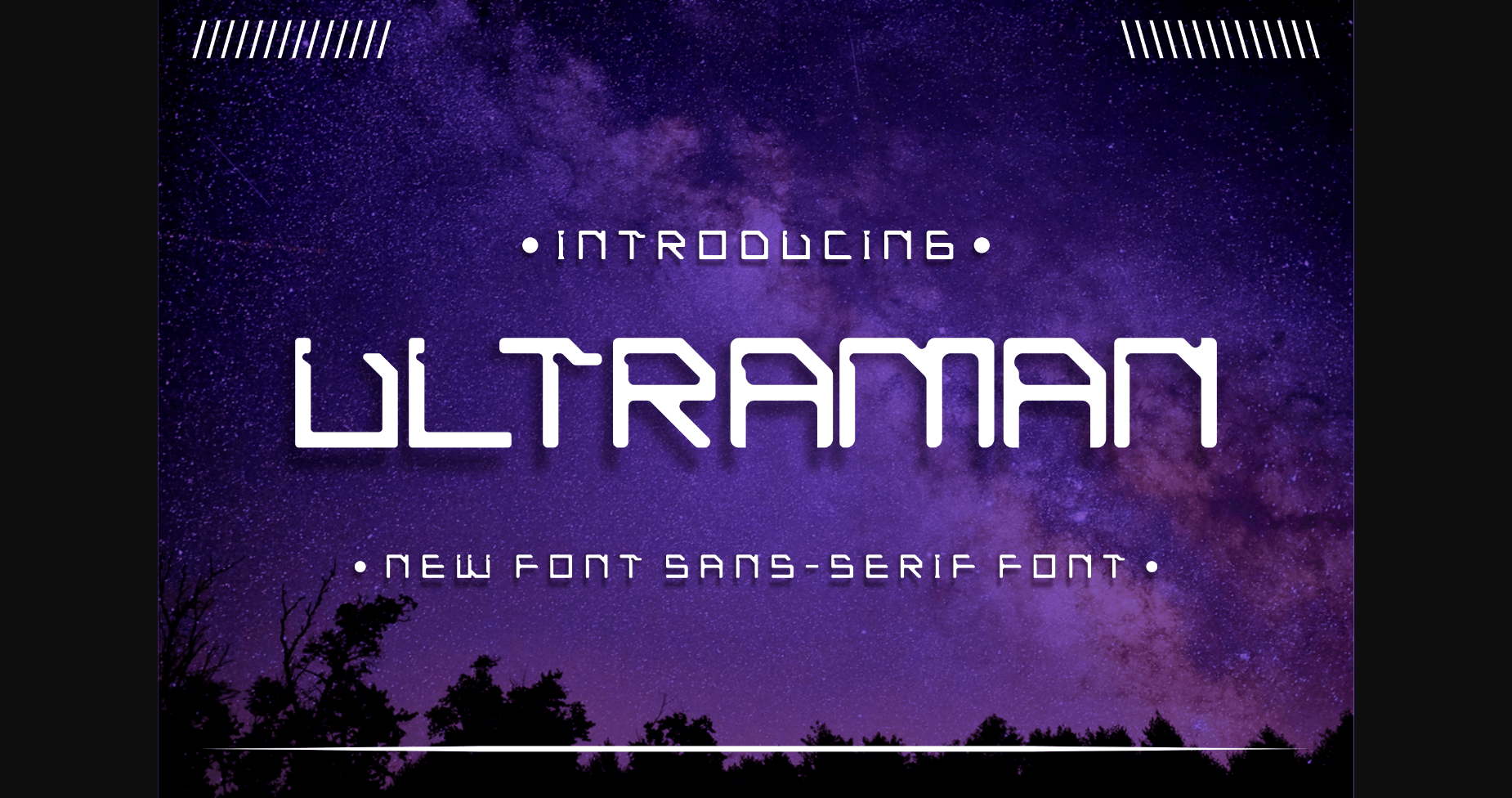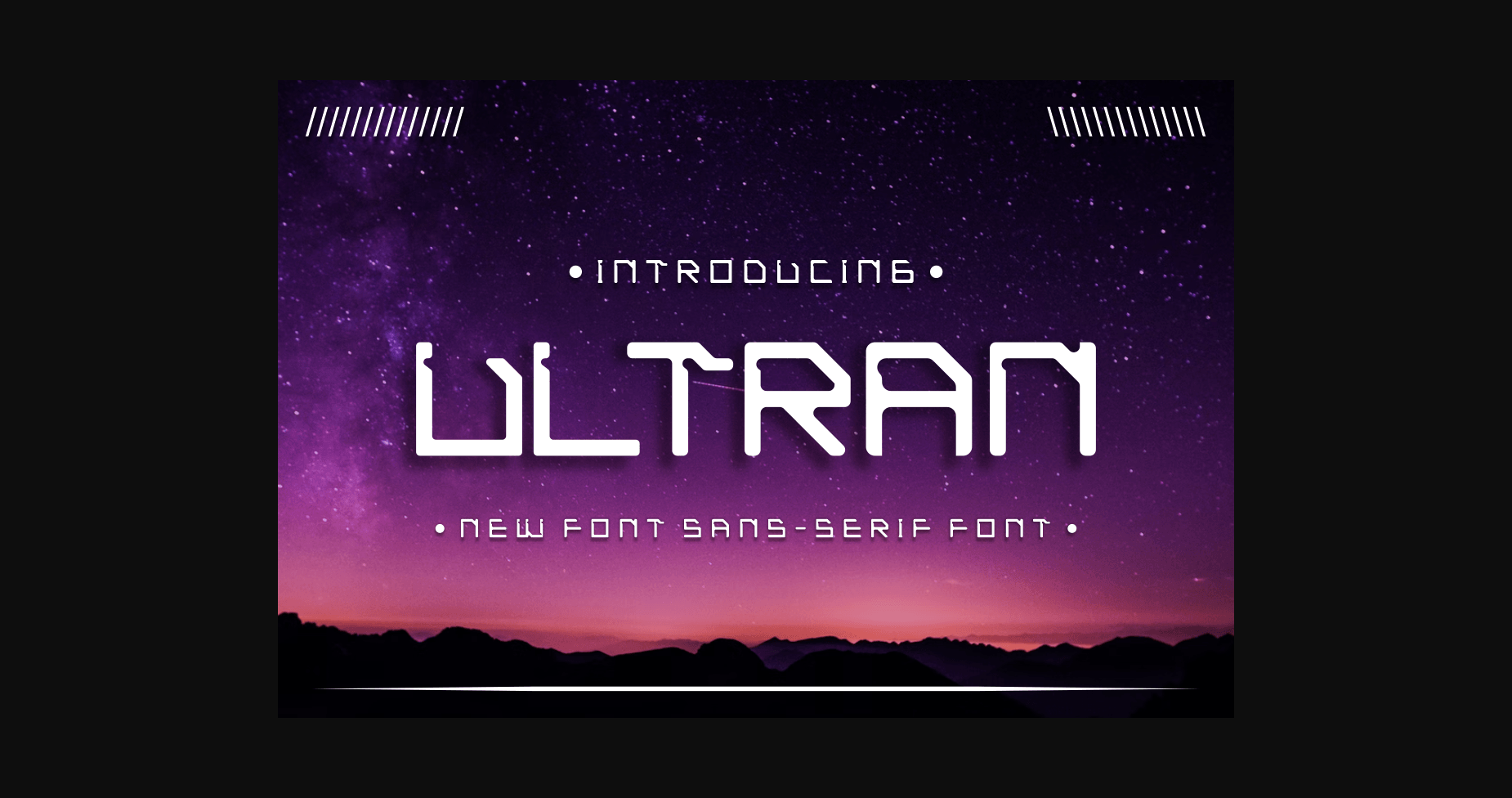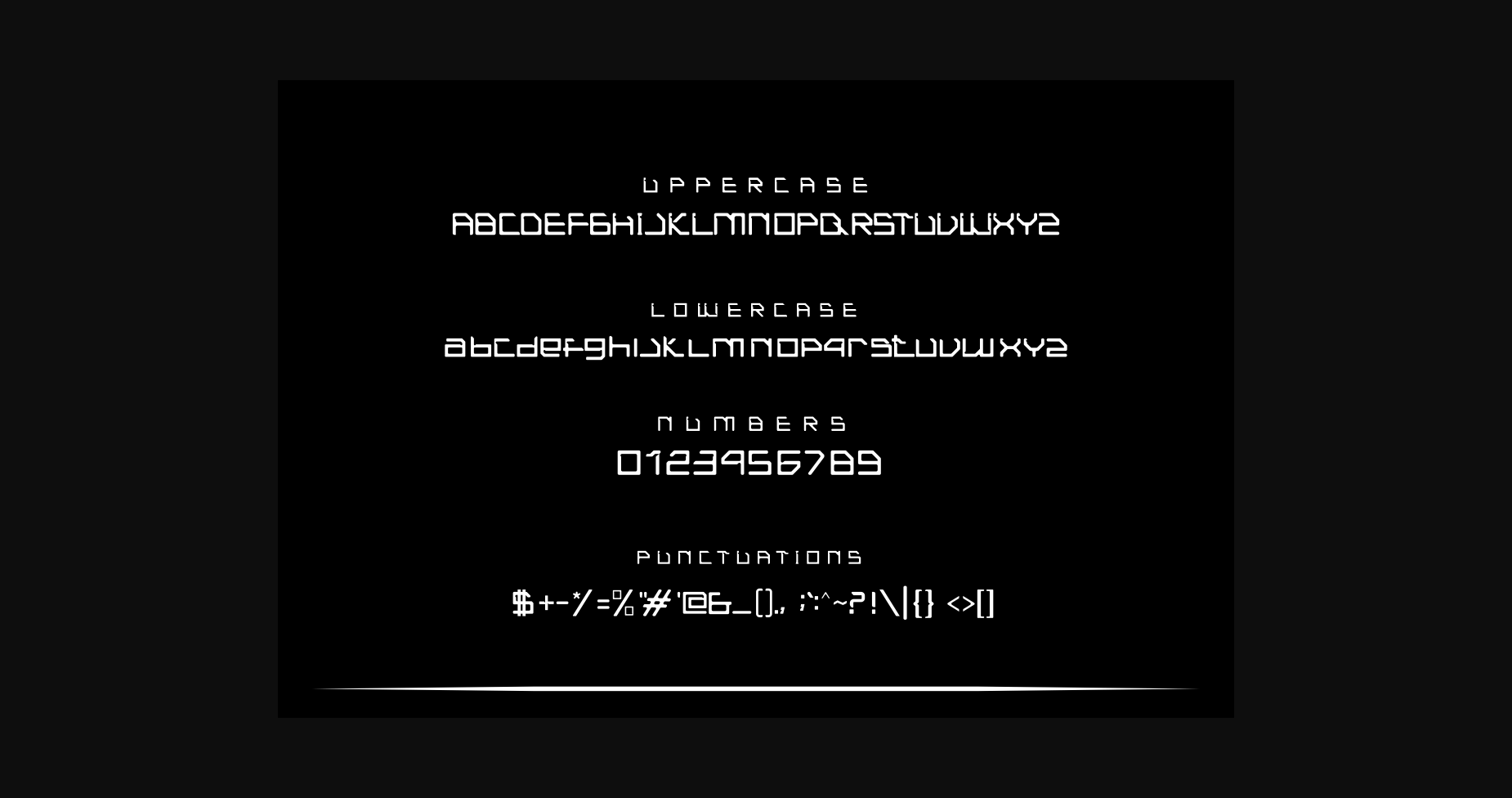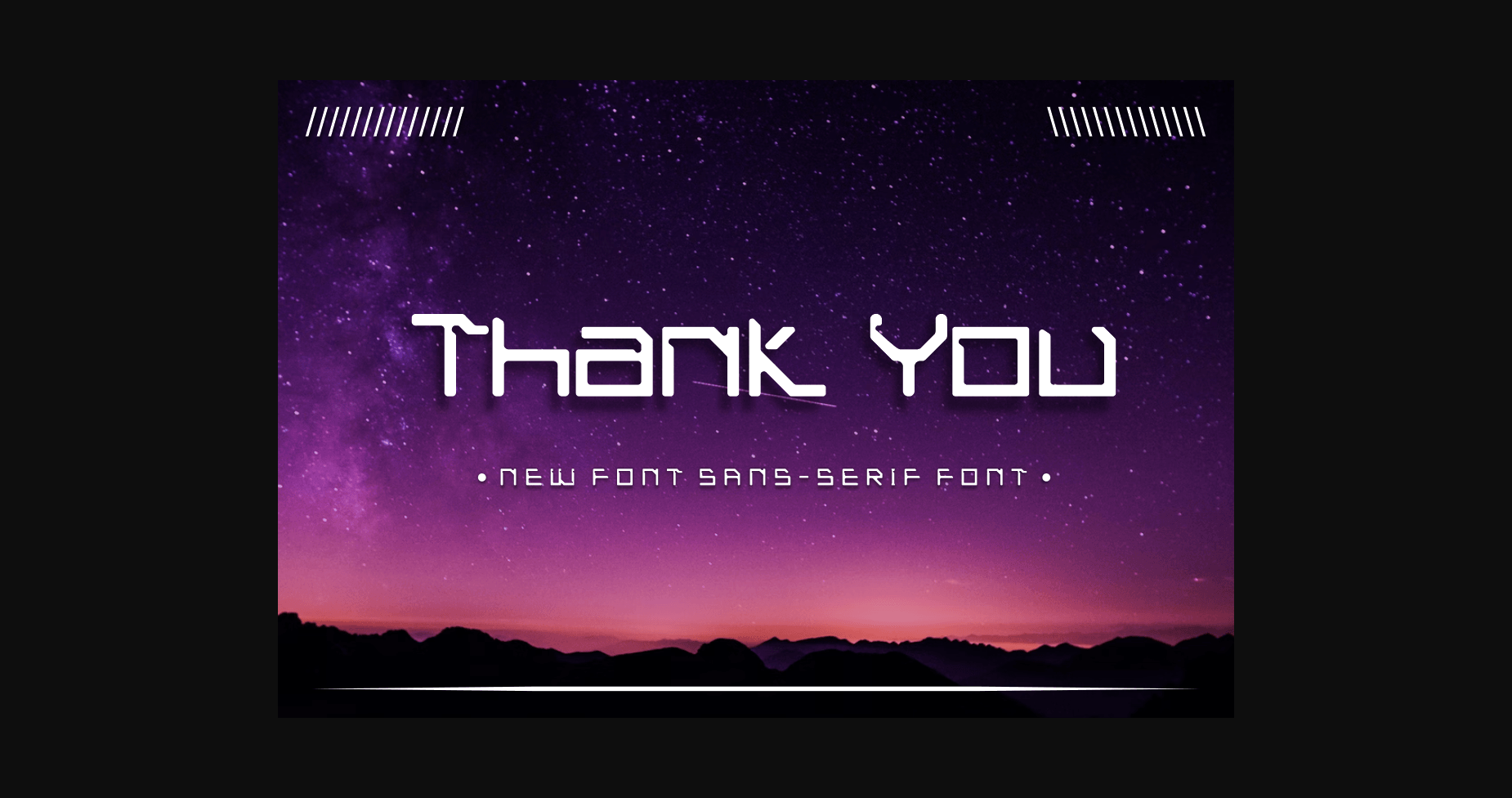
HomeSans Serif FontsUltraman Font Sans Serif Fonts Ultraman Font FacebookXPinterestWhatsApp 1 of 6 ... Ultraman Font Poster 2... Ultraman Font Poster 3... Ultraman Font Poster 4... Ultraman Font Poster 5... Ultraman Font Poster 6... About Ultraman Font Ultraman is a modern and cool sans serif font. Its innovative and clean vibe can easily apply to your favorite designs such as book covers, magazines, social media posts, invitations, and so much more! DOWNLOAD NOW People also explored DuskerRobotic Font Beauty Night Font Venice Old Red Wall | Poster Mockup Secret Town Font Bakeapple Grunge Font Clarkson Dheli Font Madeline Font Petrusum Unu Font 757 0 TagsUltraman Font Previous articleBlacktech FontNext articleTorrau Font LEAVE A REPLY Cancel reply Comment: Please enter your comment! Name:* Please enter your name here Email:* You have entered an incorrect email address! Please enter your email address here Website: Save my name, email, and website in this browser for the next time I comment. Personal Use Free Setta Personal Use Free Read more about this font BD TinyFont Personal Use Free Read more about this font Just Love Personal Use Free Read more about this font Abingdon Personal Use Free Read more about this font BLOG Using Fonts in Digital Marketing: Tips to Strengthen Your Brand Identity In the realm of digital marketing, every visual element plays a crucial role in shaping a brand's identity, and fonts are no exception. The... Elegant Wedding Invitation Fonts – Handwritten & Script Fonts The 10 Best Handwriting Fonts to Add Personality to Your Designs Free Fonts Risk: Why Free Fonts Can Be Dangerous for Designers